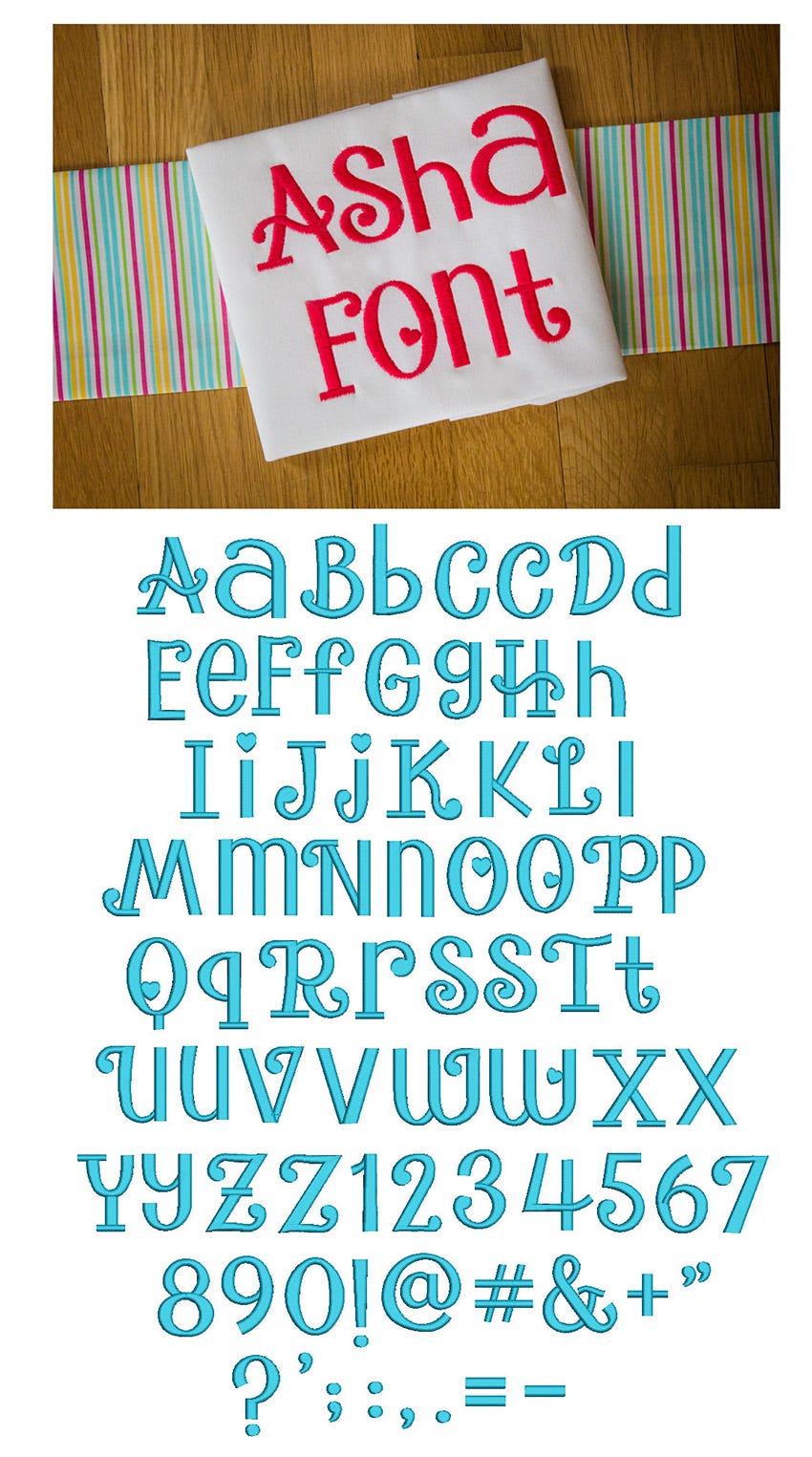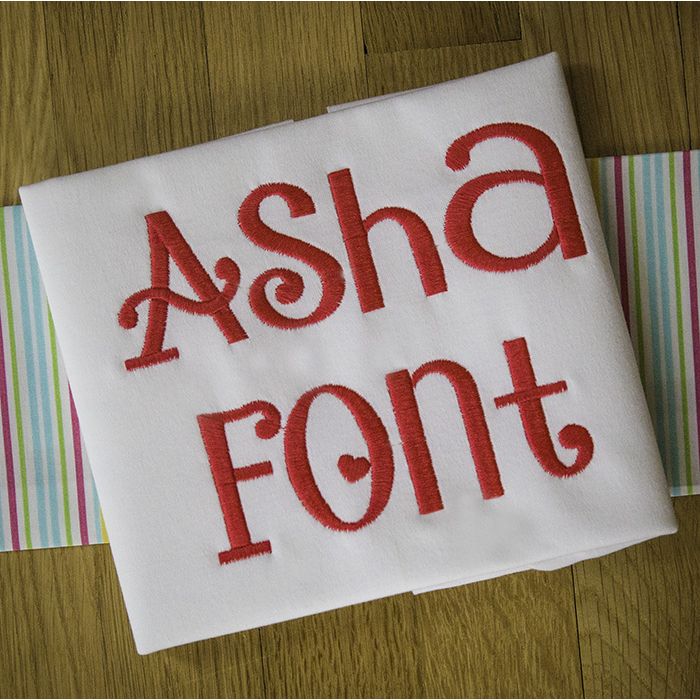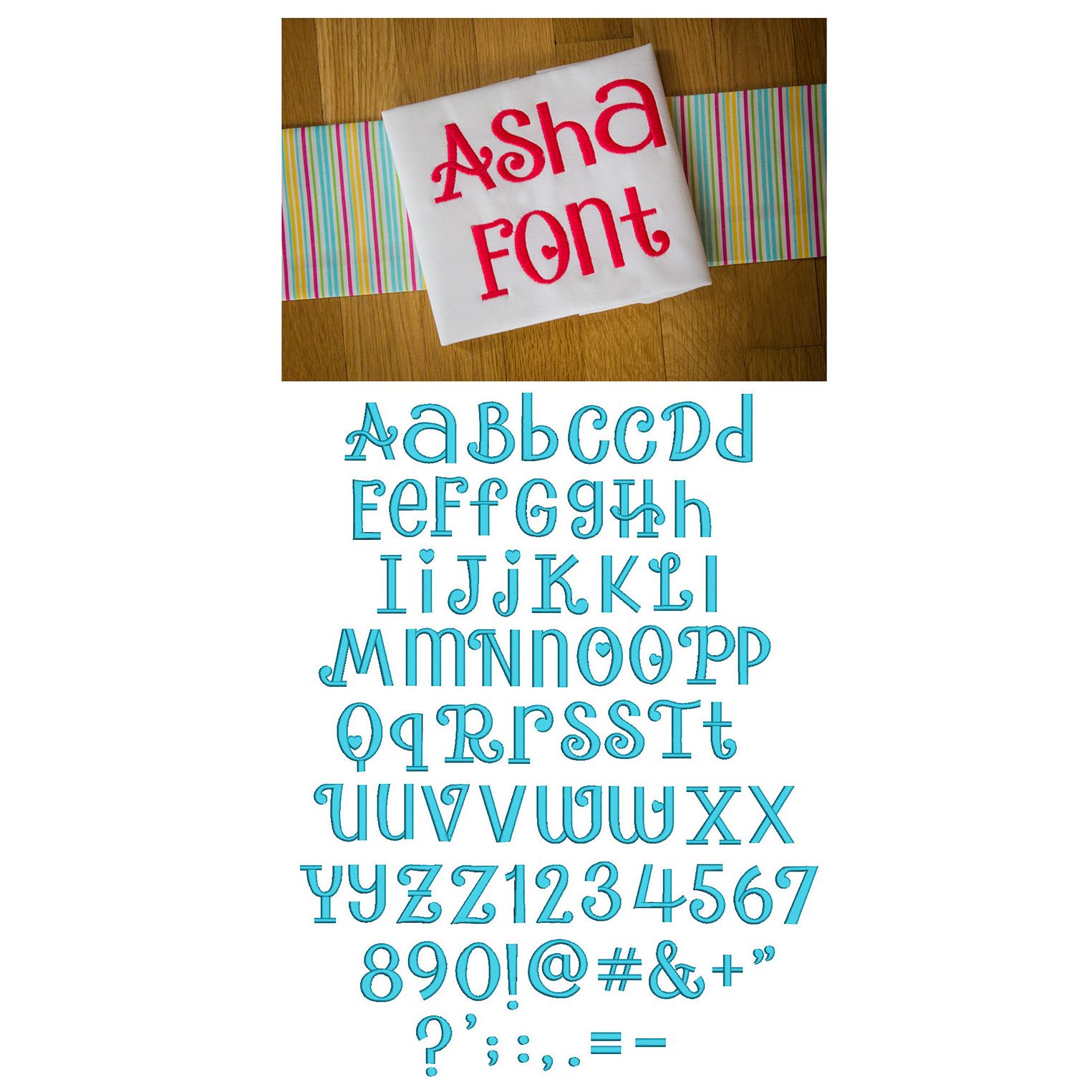
Asha Satin Stitch Embroidery Font
Lovely and unique...letters are all the same height. All of our font alphabets are 100% manually digitized to bring you maximum stitch quality.